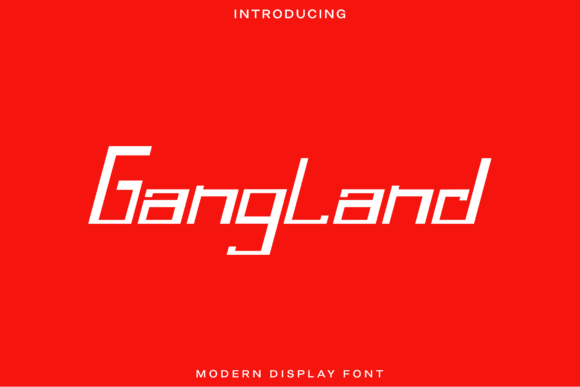
Take your visual communication to the next level with Gangland Font – the ultimate display font, meticulously crafted by the renowned Liarttype. Embark on a typographic journey where creativity and impact converge, leaving an indelible mark on your audience.
Gangland Font is not just a collection of letters and symbols; it's an artistic expression waiting to be unleashed. Its dynamic and energetic strokes evoke a sense of urgency, speed, and strength, making it the perfect choice for racing or sporting events, automotive designs, action-packed movie titles, or anything that demands attention.
With Gangland Font, you have the power to transform ordinary text into captivating headlines, logos, posters, and social media graphics. Its sharp angles and bold curves create a striking visual appeal that cuts through the clutter, ensuring your message stands out from the crowd.
Unleash your imagination and let Gangland Font be your creative companion. Its versatility extends beyond the realm of racing and sports. Whether it's a fashion magazine, a music album cover, or a video game interface, Gangland Font possesses the adaptability to elevate your designs to new heights.
Experience the thrill of creating visuals that resonate with your audience. Gangland Font is a font that speaks volumes, conveying emotions and messages with every stroke. Don't settle for ordinary fonts; embrace the extraordinary with Gangland Font and witness the transformation of your designs into captivating masterpieces.